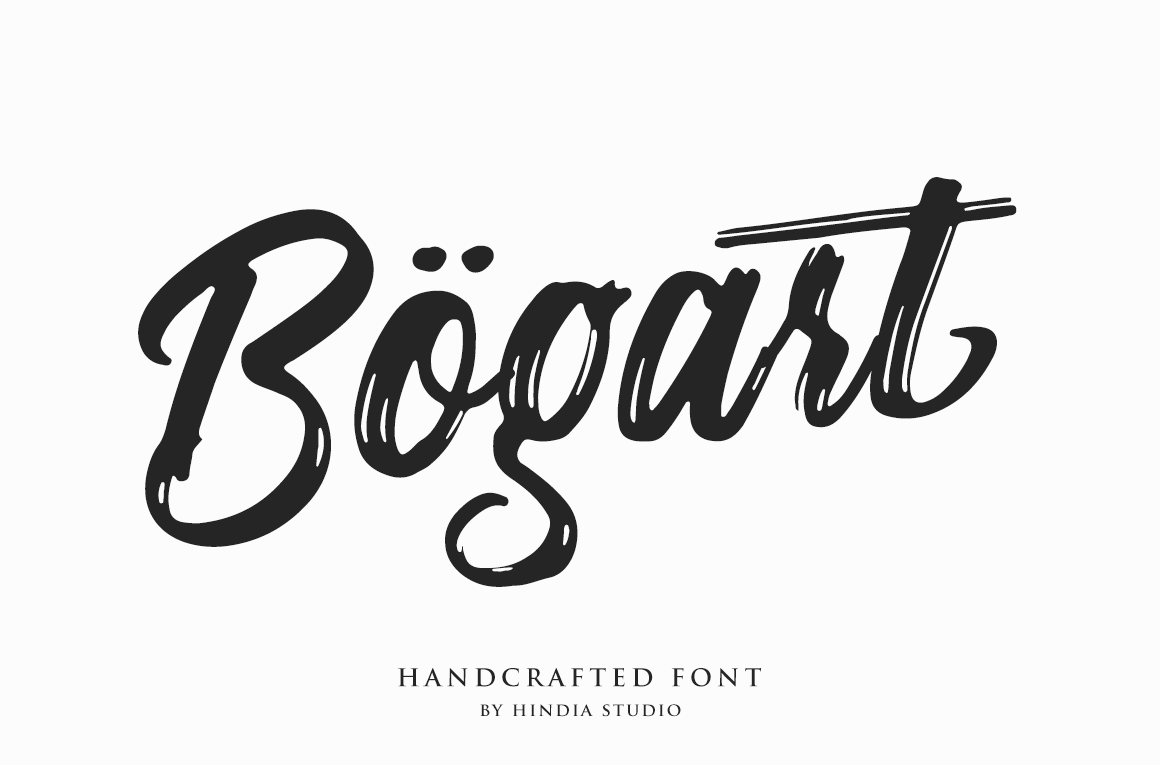
Bogart Font: A Casual and Fresh Brush Stroke Style for Your Designs
Bogart Font is a beautiful, casual, and free-flowing script font that has been crafted in a brush stroke style. This font is perfect for designers and crafters who are looking for a fresh and unique typography to add a personal touch to their designs. With its nice cursive handwriting and rough edgy touch, Bogart Font is sure to make your designs stand out from the crowd.
What Makes Bogart Font Special?
Bogart Font is a carefully crafted font that features a unique blend of cursive handwriting and rough edgy texture. Each letter has been carefully arranged to give the font a natural, hand-crafted feel that is perfect for a wide range of design styles. Whether you’re creating a logo, a poster, or a social media graphic, Bogart Font is sure to add a touch of personality and whimsy to your design.
Key Features of Bogart Font
- Casual and Free-Flowing: Bogart Font has a relaxed, casual feel that makes it perfect for designs that require a friendly and approachable tone.
- Brush Stroke Style: The font features a beautiful brush stroke style that gives it a natural, hand-crafted feel.
- Rough Edgy Touch: The font’s rough edgy texture adds a touch of ruggedness and whimsy to your designs.
- Cursive Handwriting: Bogart Font features beautiful cursive handwriting that is perfect for designs that require a personal touch.
- Carefully Crafted Letters: Each letter has been carefully crafted and arranged to give the font a natural, hand-crafted feel.
Uses of Bogart Font
Bogart Font is a versatile font that can be used for a wide range of design styles and projects. Here are some ideas for using Bogart Font:
- Logos and Branding: Use Bogart Font to create a unique and memorable logo for your business or brand.
- Posters and Flyers: Add a touch of personality to your posters and flyers with Bogart Font.
- Social Media Graphics: Use Bogart Font to create eye-catching social media graphics that will help you stand out from the crowd.
- Invitations and Cards: Bogart Font is perfect for creating beautiful invitations and cards for special occasions.
- Packaging and Labels: Use Bogart Font to add a personal touch to your packaging and labels.
Tips for Using Bogart Font
Here are some tips for getting the most out of Bogart Font:
- Use it with a contrasting font: Pair Bogart Font with a contrasting font to create visual interest and hierarchy in your design.
- Experiment with colors: Bogart Font looks great in a variety of colors, so don’t be afraid to experiment and find the perfect color for your design.
- Use it sparingly: Bogart Font is a statement font, so use it sparingly to avoid overwhelming your design.
Bogart Font is a beautiful and versatile font that is perfect for designers and crafters who are looking for a fresh and unique typography to add a personal touch to their designs. With its casual and free-flowing style, brush stroke texture, and rough edgy touch, Bogart Font is sure to make your designs stand out from the crowd. So why not give it a try and see how it can elevate your designs?